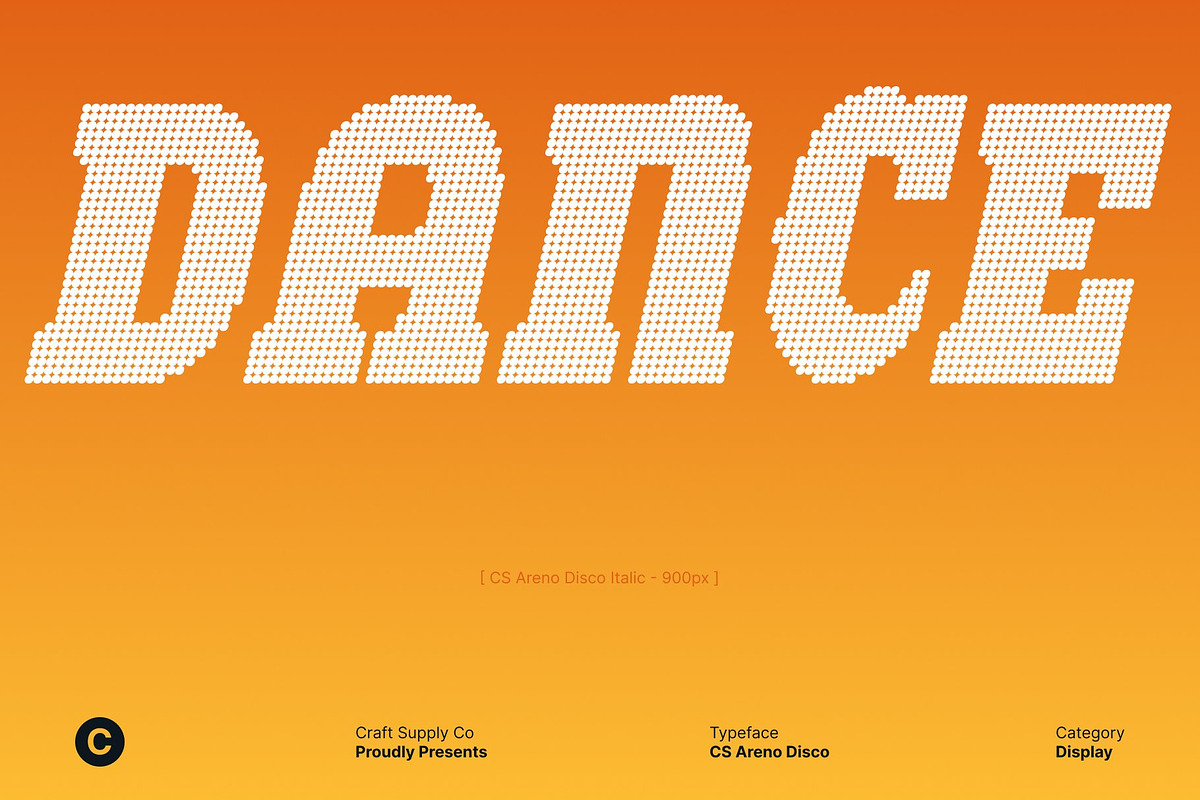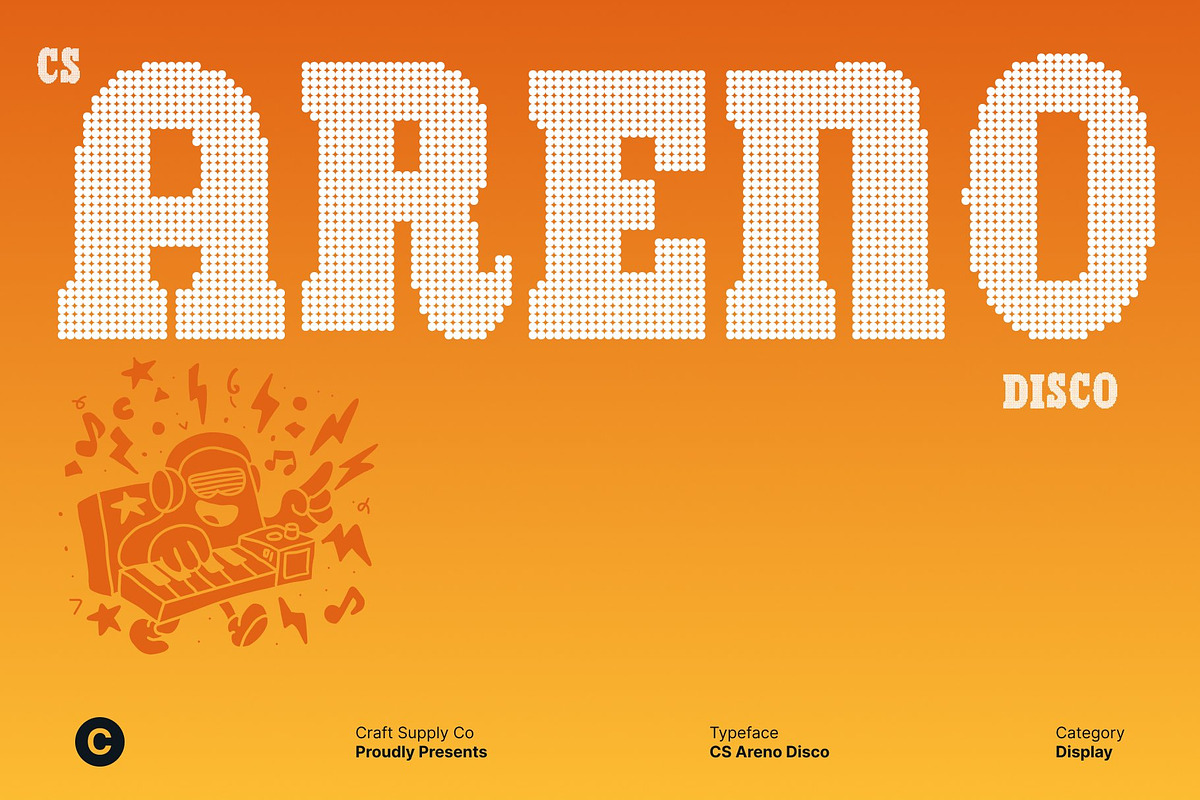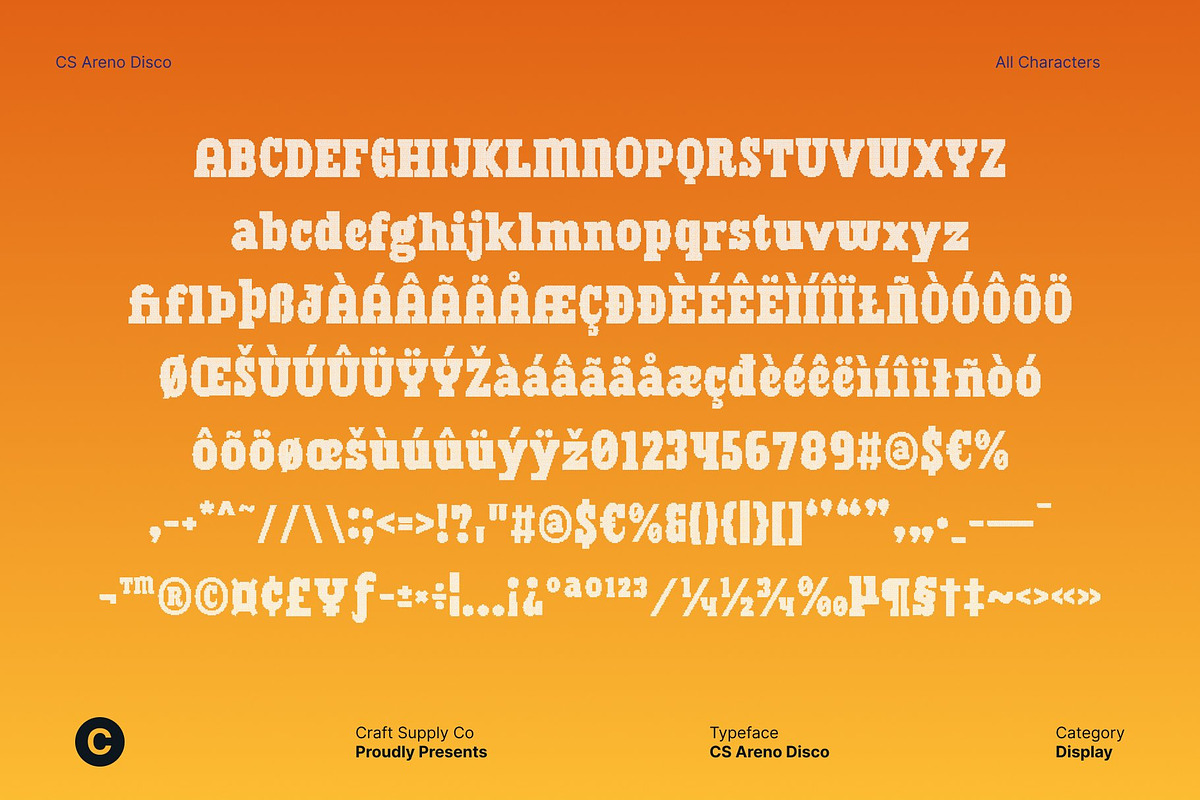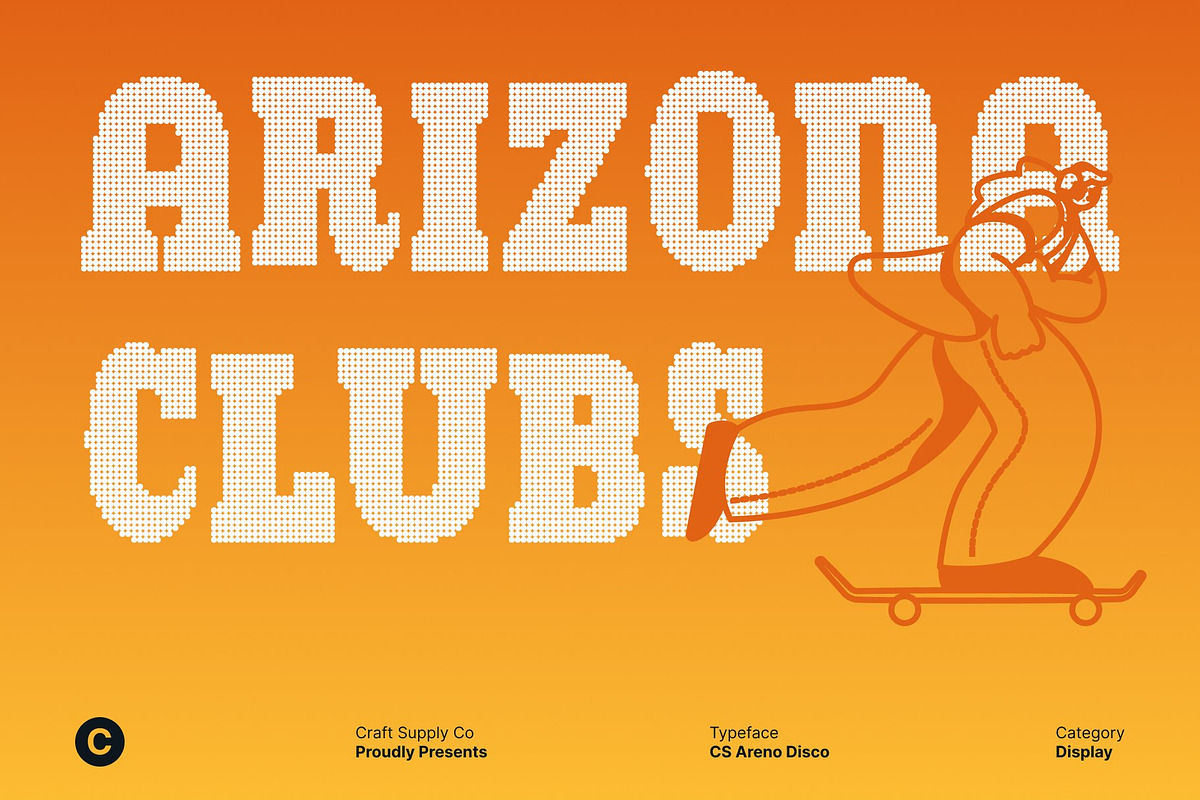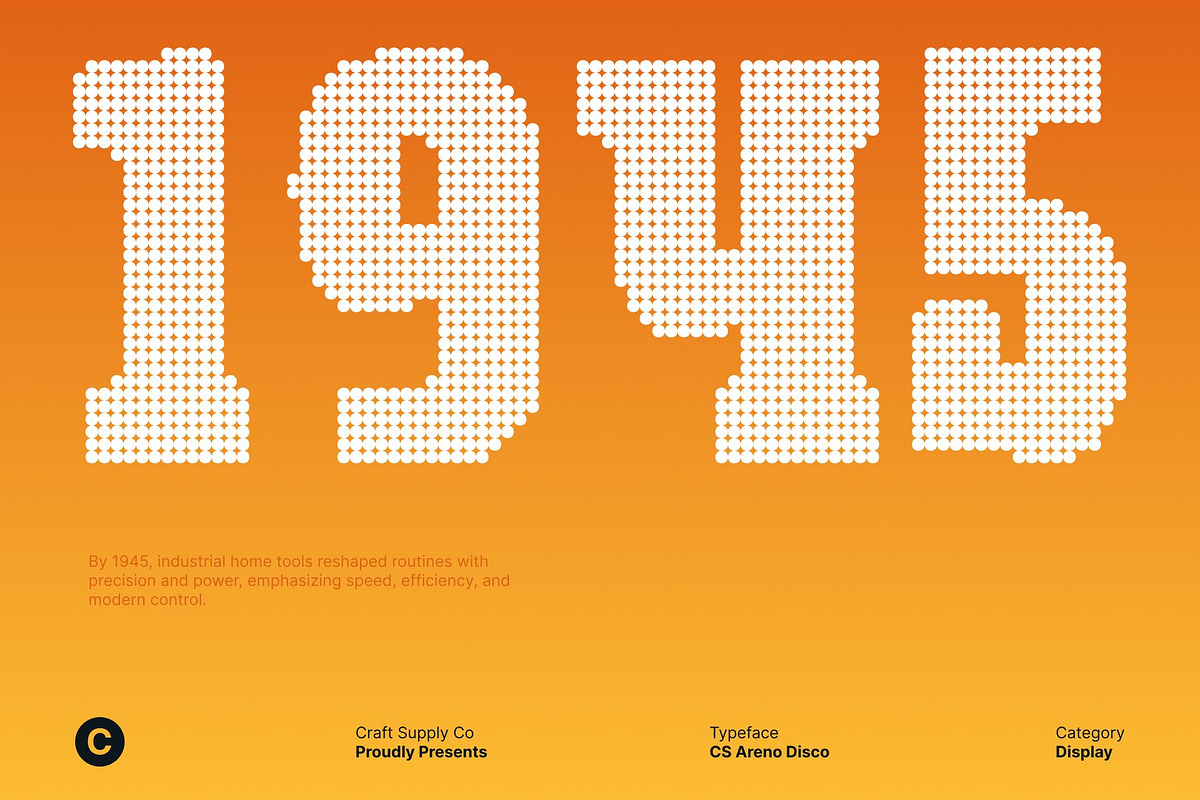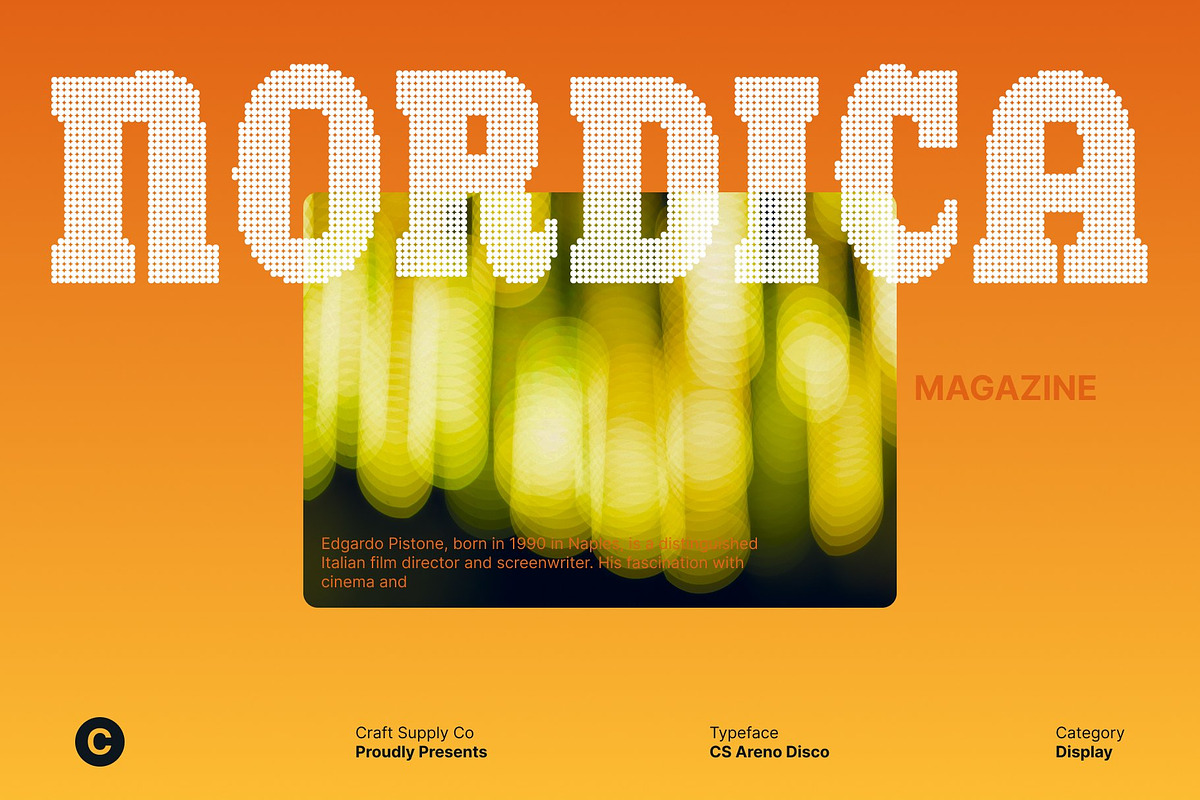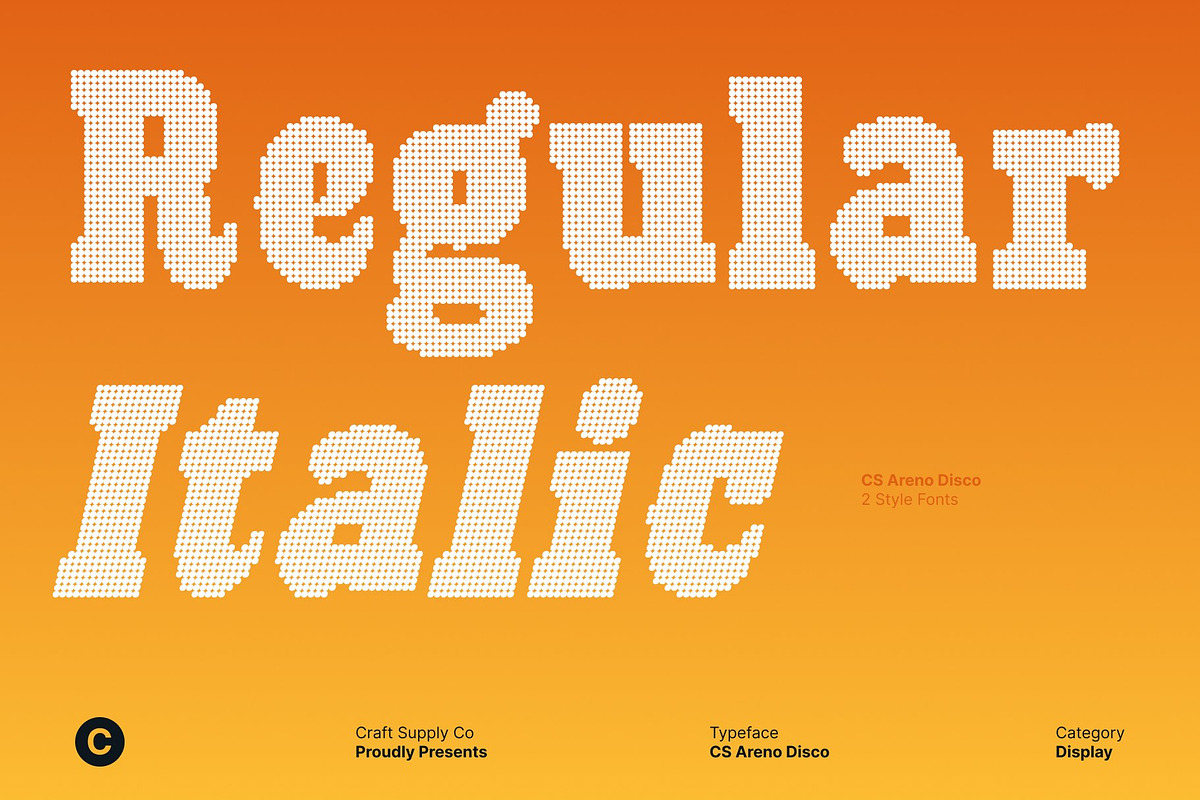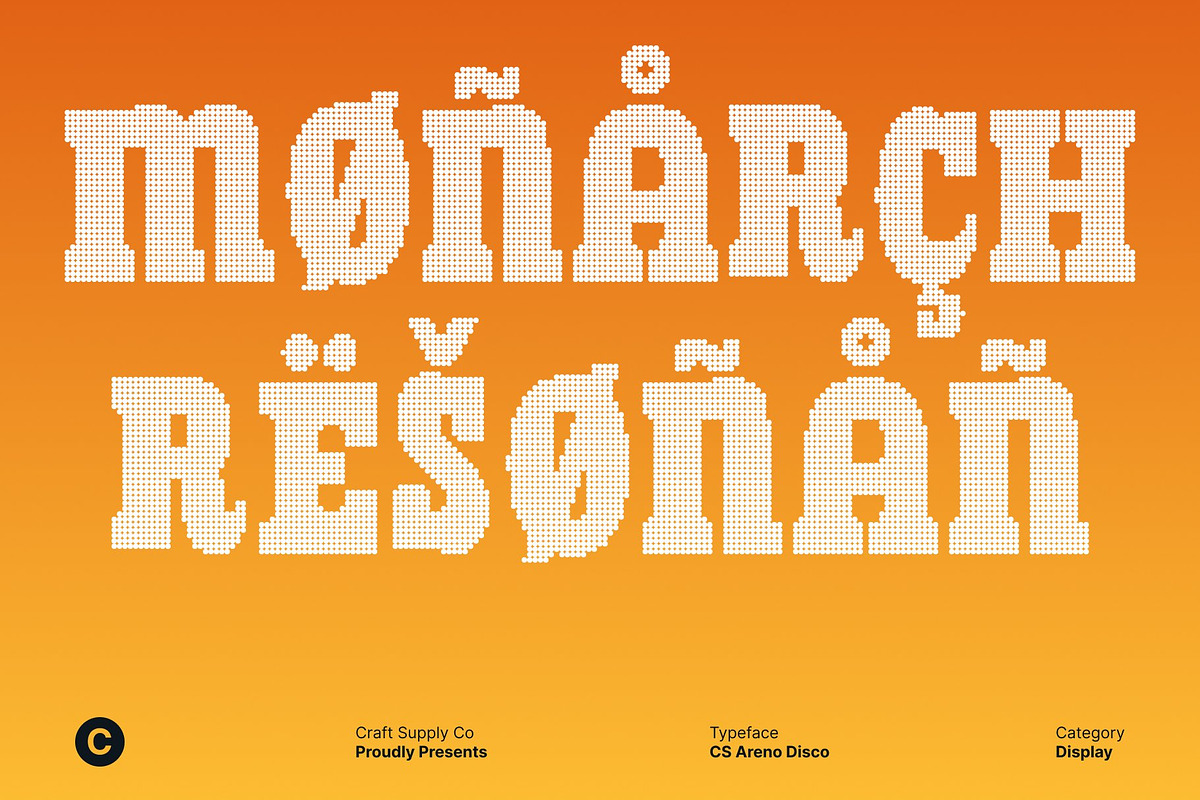
CS Areno Disco
CS Areno Disco – Retro Slab Serif with Bold, Festive Authority
Retro Slab Serif with Confident, High-Impact Character This is a slab serif font that fuses retro charm with modern assertiveness. Its bold serifs, sturdy construction, and vintage-inspired shapes create a strong visual identity that stands out instantly. Every letter feels confident and grounded, delivering a powerful presence with a nostalgic edge.
Maximum Readability with Disco-Driven Impact Designed for clarity and display power, this font performs exceptionally well at large sizes. Thick strokes and stable proportions ensure excellent readability from long distances, making it ideal for headlines, posters, advertisements, and billboards. The disco influence adds rhythm and visual excitement, turning strong typography into a lively, attention-grabbing statement.
Timeless Structure with Modern, Energetic Flair While rooted in retro aesthetics, this font introduces a modern twist through clean geometry and assertive forms. Its solid slab serifs convey reliability and strength, while the energetic disco vibe injects freshness and celebration balancing timeless structure with contemporary appeal.
Perfect for Bold Branding, Sports Visuals, and Dynamic Displays This font adapts seamlessly to branding, sports graphics, event posters, and bold packaging designs. Its assertive style and festive energy make it perfect for projects that demand impact, confidence, and memorability. With its retro spirit and disco-inspired flair, this font ensures every design feels dynamic, powerful, and ready to shine.